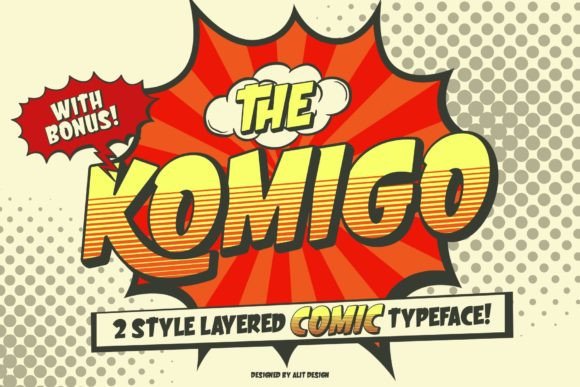
Step into the world of Komigo, a display font that bursts with personality and captivates like no other! Its playful, bold, and layered design is a breath of fresh air, adding a touch of comic-style charm to all your creative endeavors.
Komigo is a font that speaks volumes, demanding attention with its striking presence. It's the perfect choice for businesses looking to make a lasting impression, beckoning customers with its inviting allure. Imagine your brand's logo, adorned with Komigo's captivating curves and dynamic style, standing out from the crowd, leaving an unforgettable mark on every beholder.
Unleash your creativity and explore endless possibilities with Komigo. Whether you're designing eye-catching posters, crafting captivating social media graphics, or creating unique website designs, Komigo's versatility knows no bounds. Its playful nature lends itself effortlessly to fun projects, while its bold presence commands respect in professional settings.
With Komigo, you'll discover a font that's not just aesthetically pleasing but also remarkably easy to use. Encoded with PUA, Komigo grants you effortless access to a treasure trove of glyphs and swashes, empowering you to infuse your designs with intricate details and captivating flourishes.
Join the ranks of savvy designers and businesses who have embraced Komigo's magnetic charm. Let your words dance with playful elegance, conveying your message with a touch of whimsy and a dash of boldness. Komigo is more than just a font; it's a statement of individuality, an expression of your unique style that resonates with your audience.
Don't settle for ordinary fonts. Embrace the extraordinary with Komigo, a display font that captivates, inspires, and leaves a lasting impression. Elevate your designs, ignite your creativity, and embark on a journey of visual storytelling that will make your brand shine brighter than ever before.